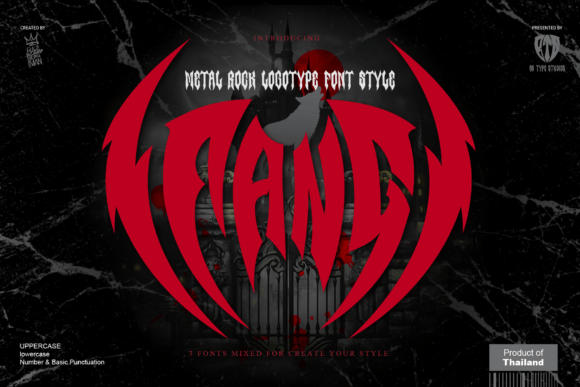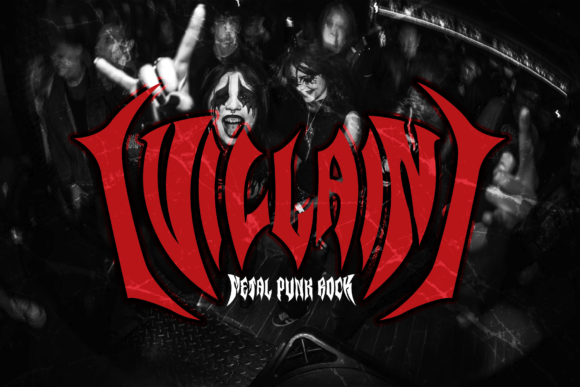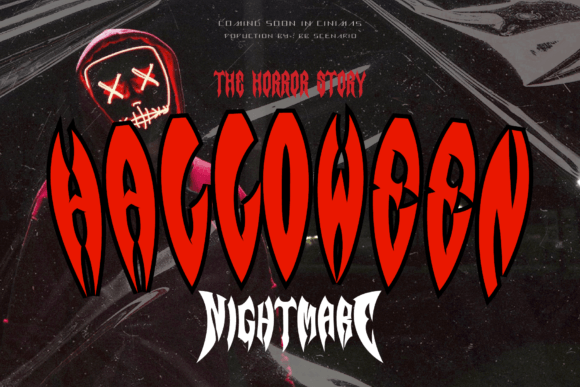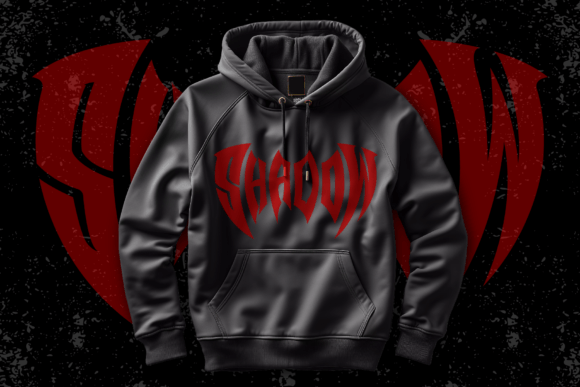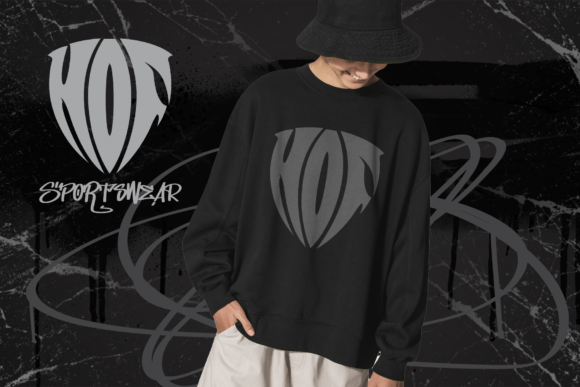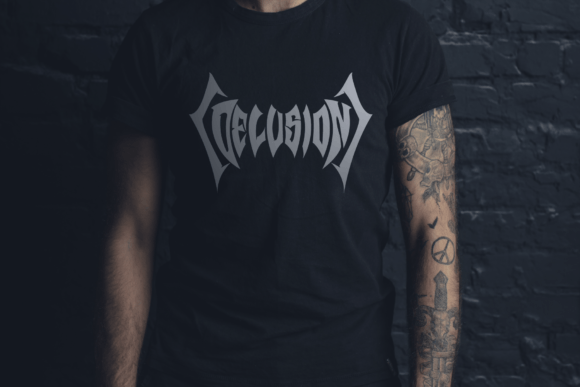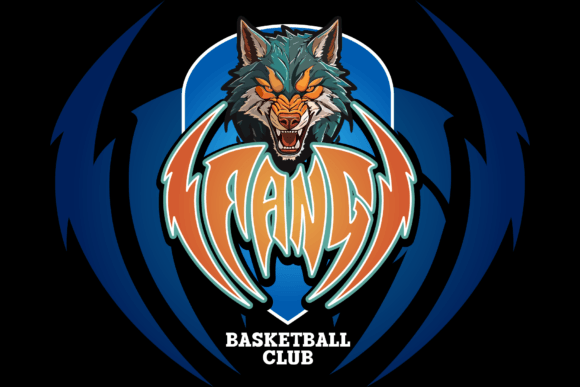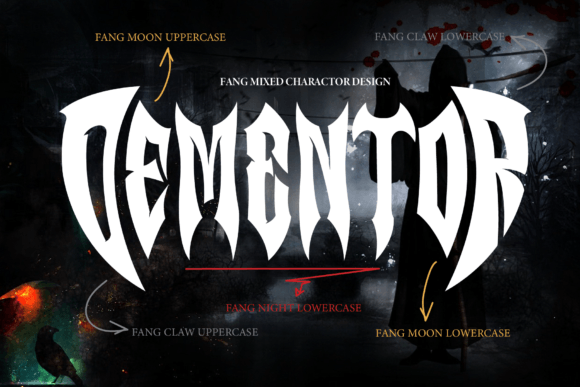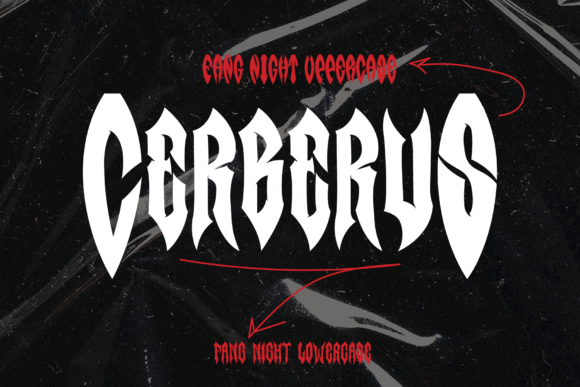
Fang Font
Introducing Fang, the ultimate heavy metal font, primed to transfigure your rock music posters and T-shirt graphics. With its audacious demeanor authentically embodying the vitality of the genre, Fang is engineered to give your logos an impactful punch that represents your heavy metal spirit. Go ahead and tap into your boundless creativity, let Fang help you turn up the volume on your design vision to its peak. Embrace the amplification that Fang brings to your ideas!